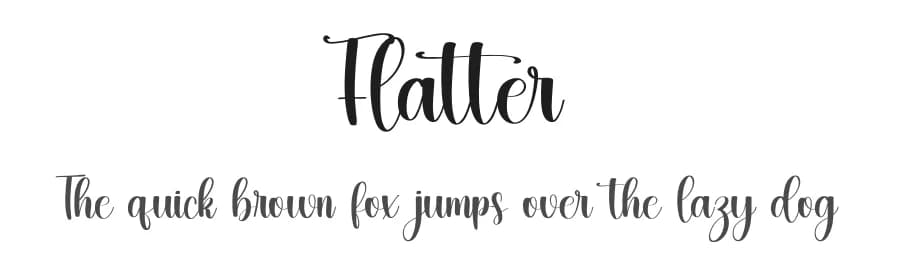
About Flatter Font
Flatter Specifications
| Font Family | Flatter |
| Full Name | Flatter |
| Glyph Count | 129 glyphs |
| PostScript Name | FlatterRegular |
Flatter supports 198 languages.
Flatter Font is a script font that shines as a display or heading face. Pair it with a clean sans-serif or serif font for body text β the contrast creates a clear hierarchy while the two styles stay balanced and easy to read.
Flatter Font